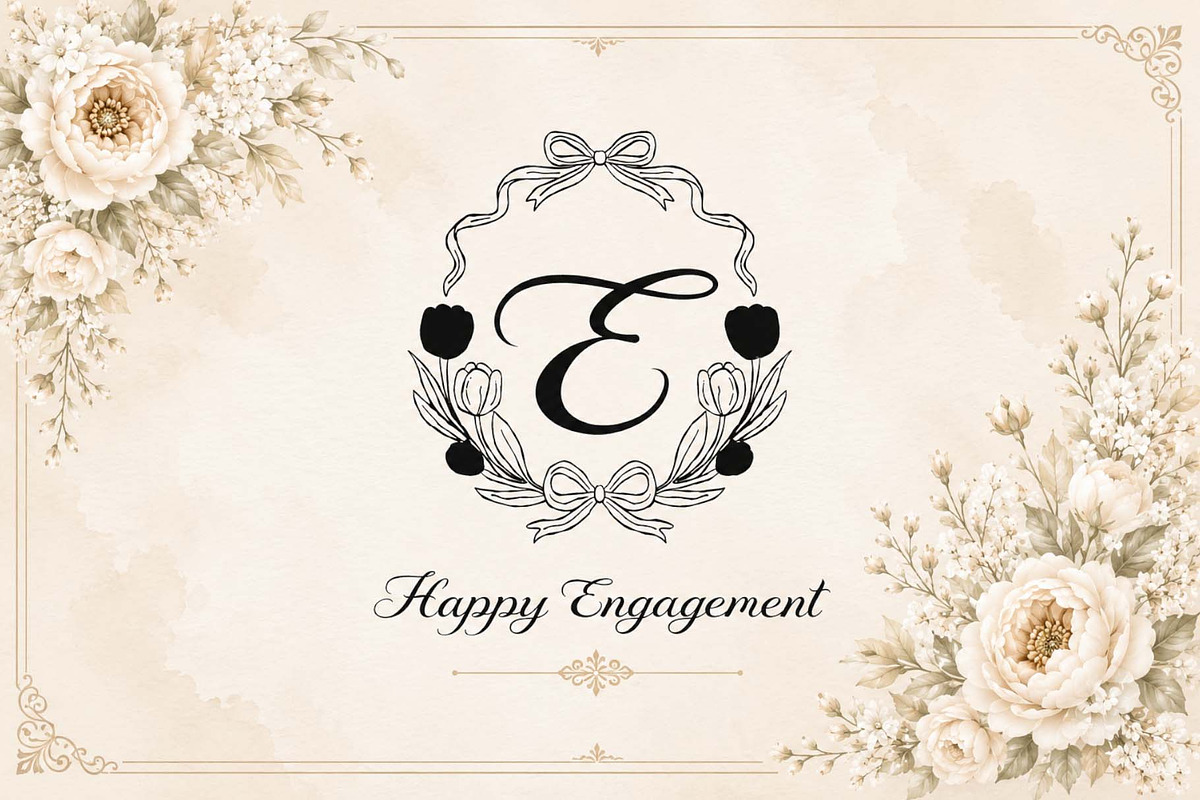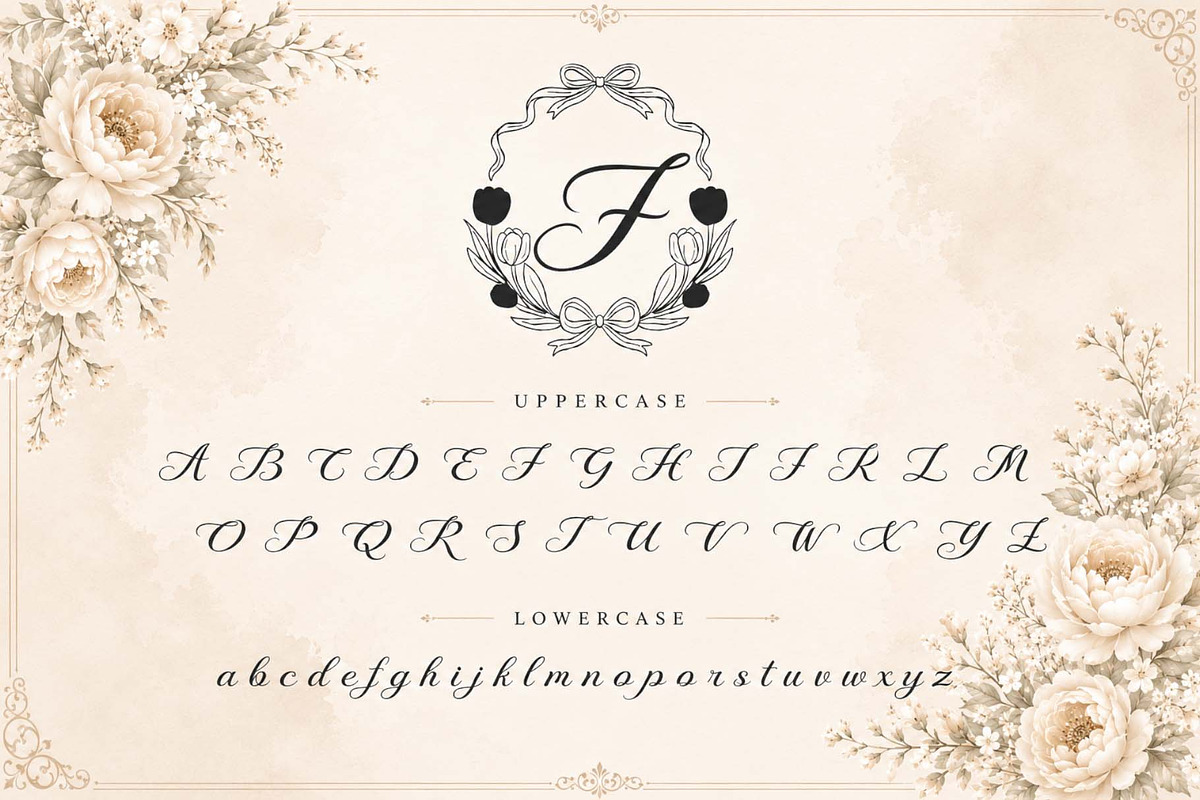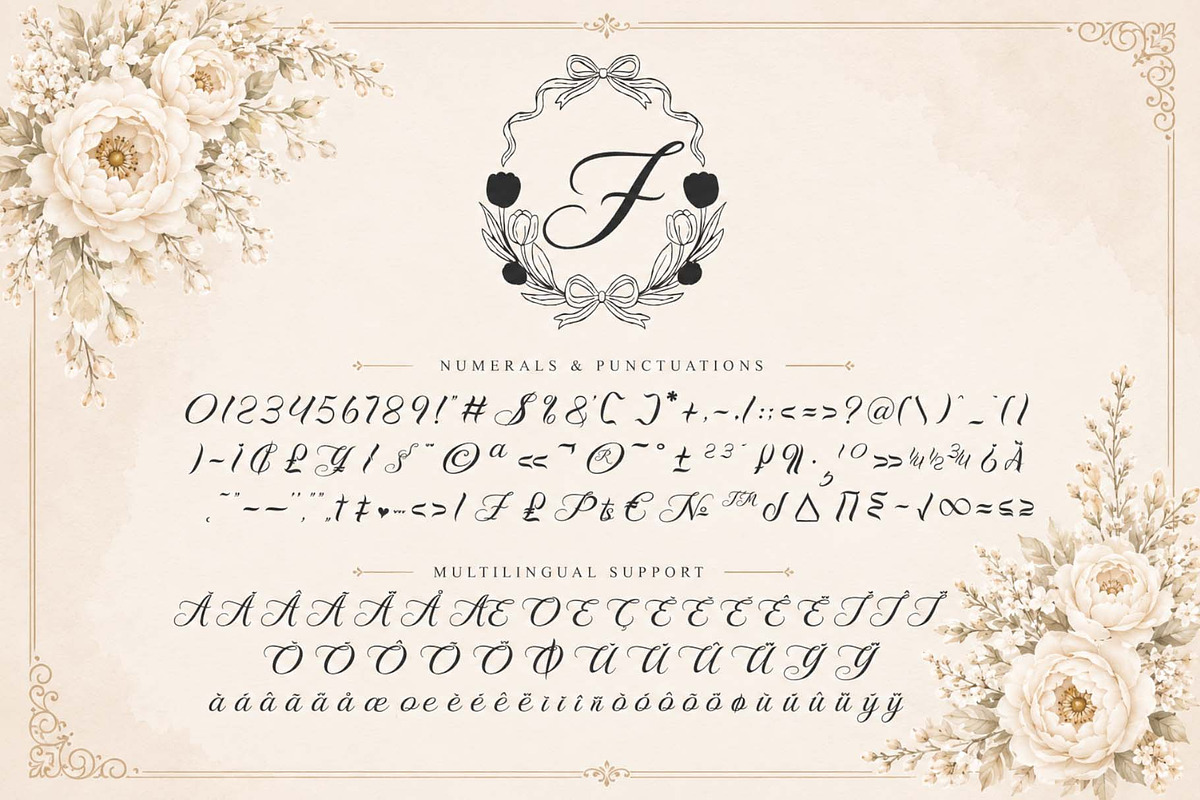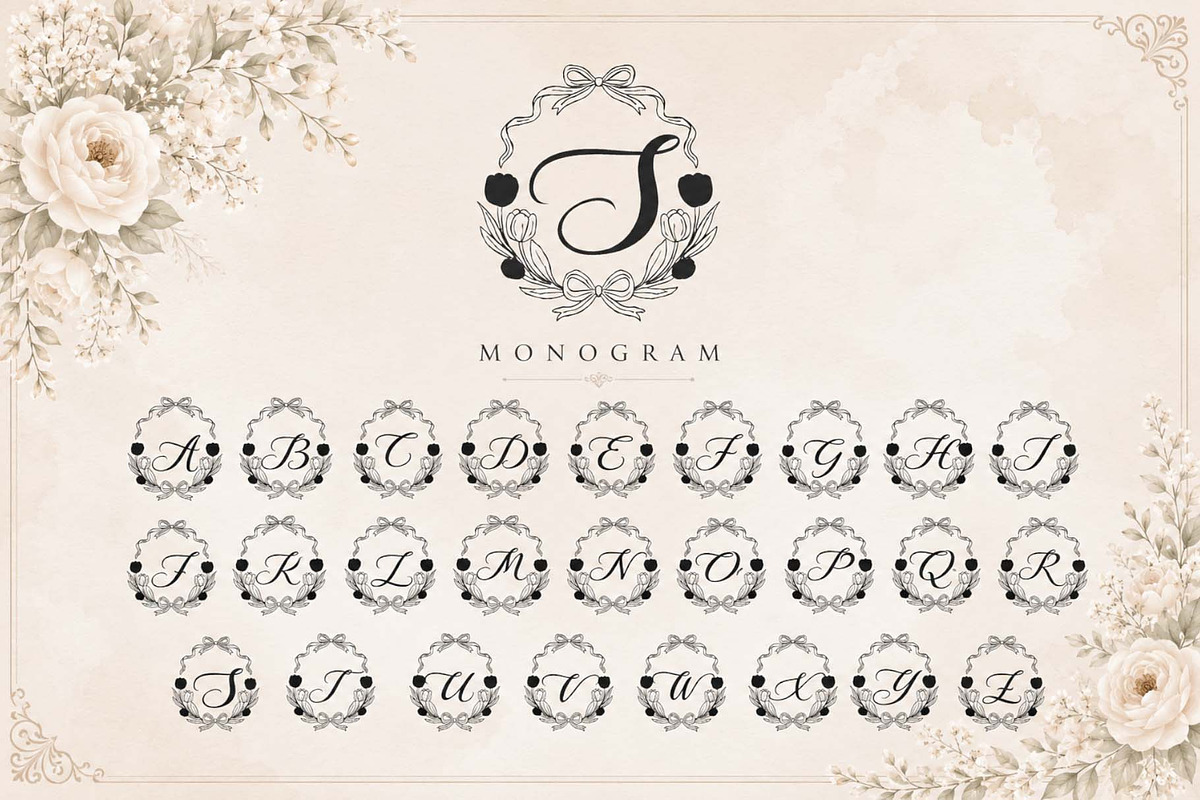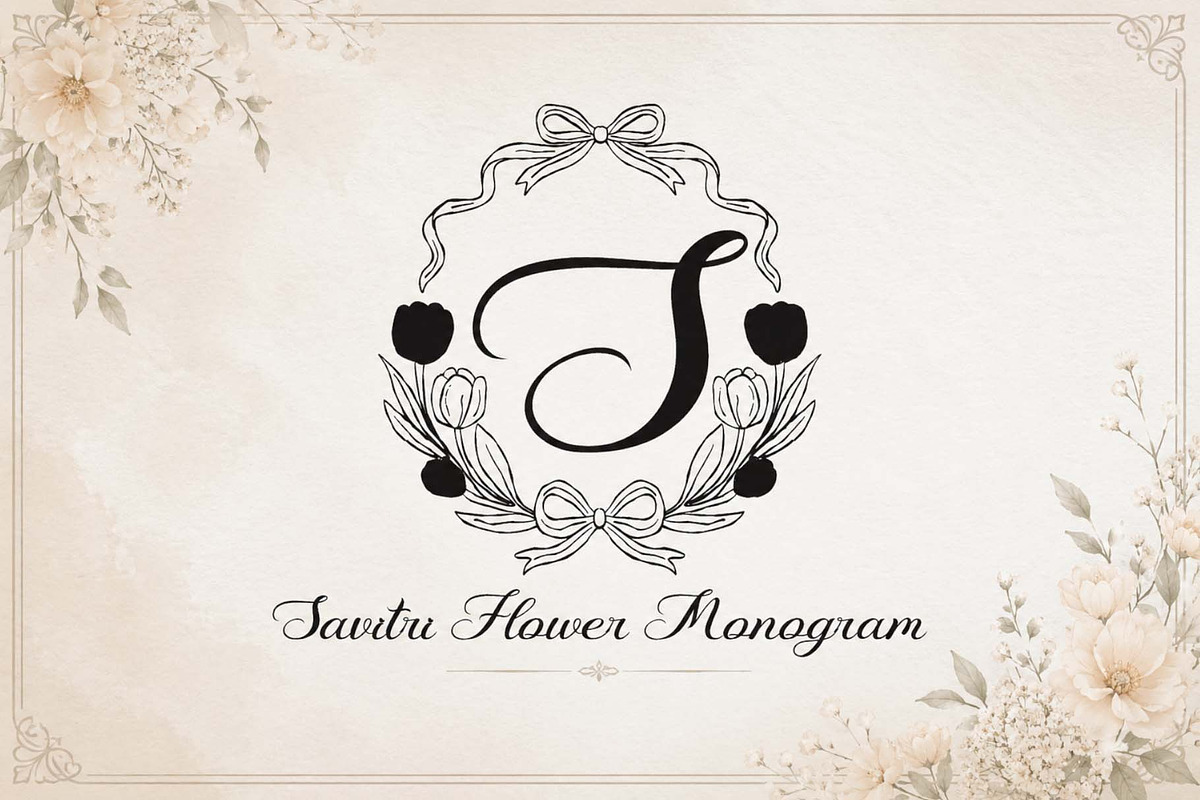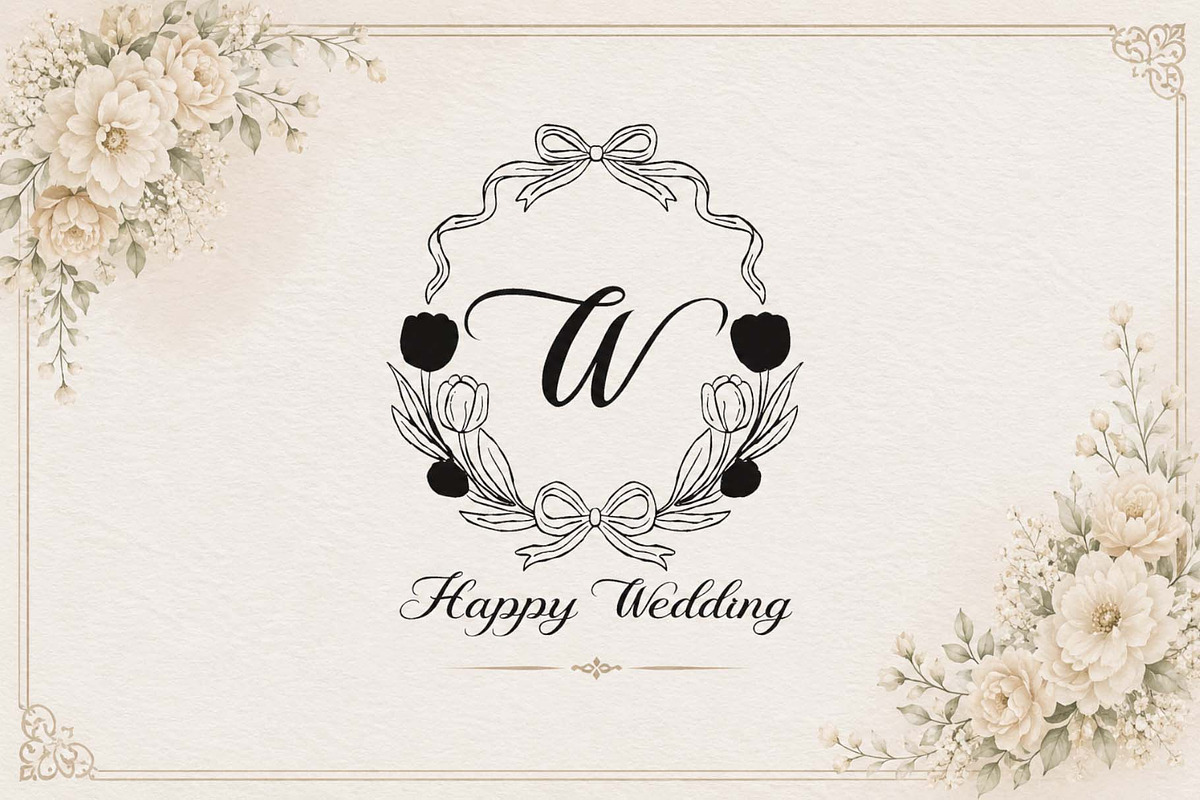
Savitri Flower Monogram
Savitri Flower Monogram is a graceful and elegant monogram font, featuring delicate floral ornamentation and decorative ribbon accents. Designed with flowing calligraphic curves and timeless charm, this font is perfect for wedding invitations, luxury branding, personalized logos, stationery, and sophisticated decorative projects. Its delicate style brings a romantic, feminine, and classic touch to any design.